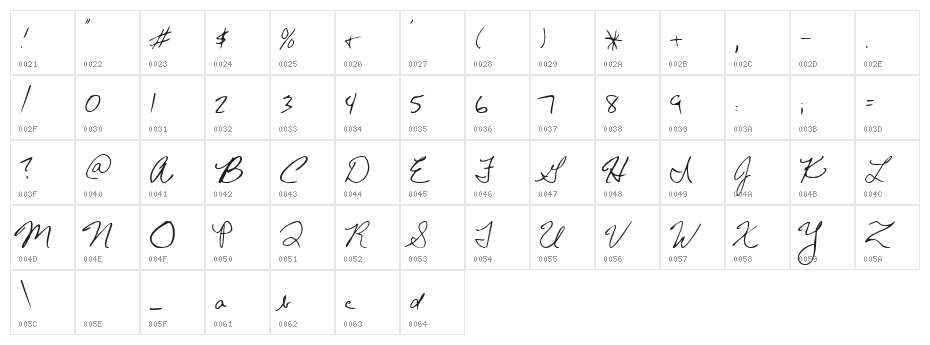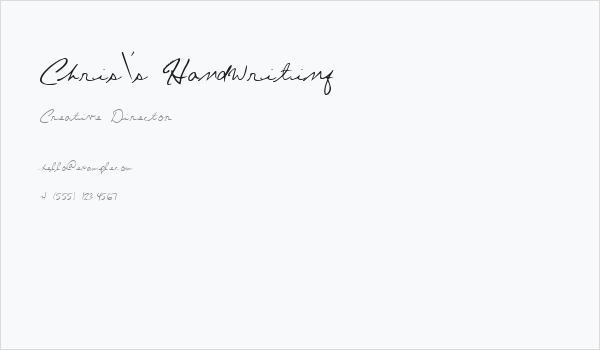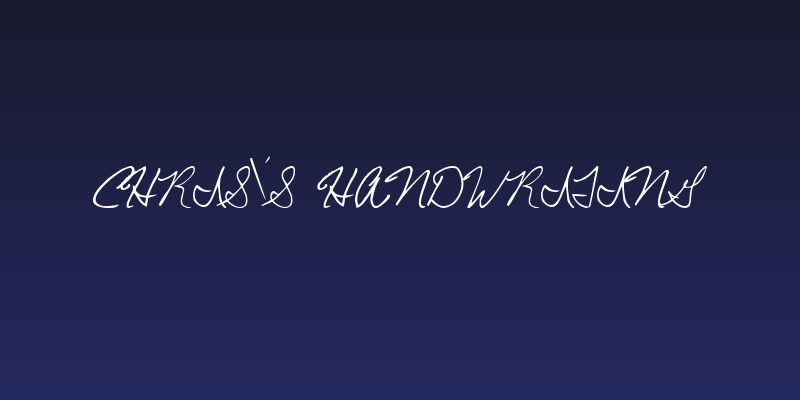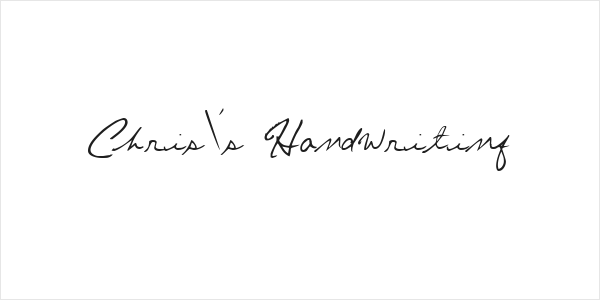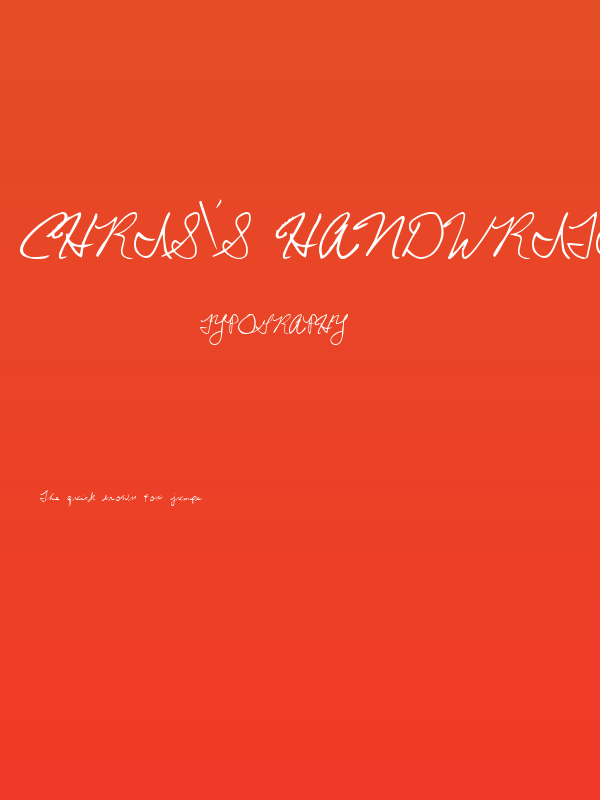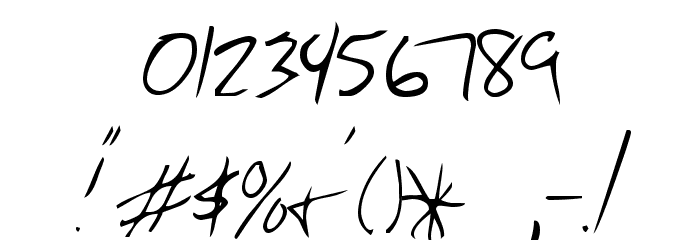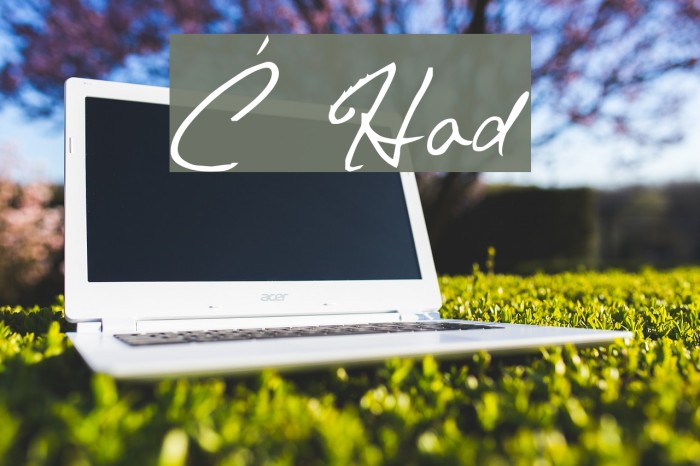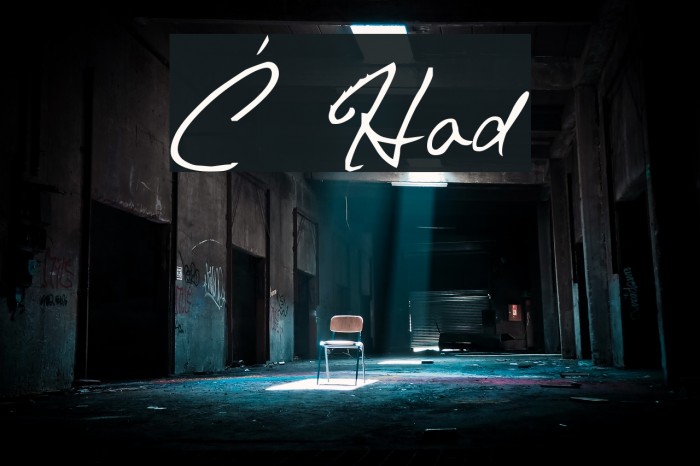
Chris's Handwriting Font
| Anwendungsfall | Logos, Invitations, Greeting Cards |
| Vorgeschlagene Projekte | Ideal for invitations, greeting cards, personal branding, and creative projects that require a handwritten look. |